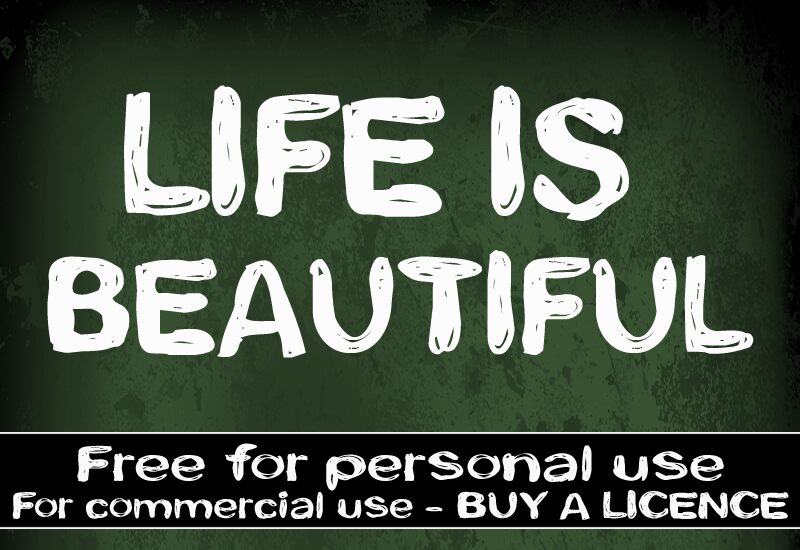
CF Life is beautiful from CloutierFontes is a free distressed script font with the rough force of marker lettering. Its broad, uneven strokes are cut by small white nicks and scratches, and the letter widths shift noticeably. Tall forms and loose joins give the line a restless silhouette.
Those scuffed marks connect with photocopied illustration and torn-paper textures in punk posters, album artwork, and streetwear graphics. On food packaging, the battered surface can become part of a hand-printed label motif.
CF Life is beautiful Regular is a font by CloutierFontes, designed by Steve Cloutier in 2013.